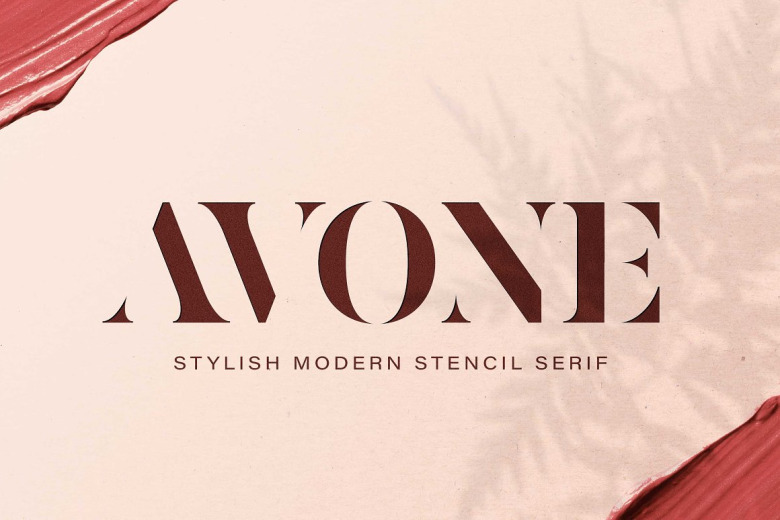
AVONE Font
AVONE Font is a sophisticated, contemporary serif typeface created by Almarkha Type with a stylish touch inspired by the famous minimalist logo and AVONE has 2 Regular and Stencil styles is perfect for the purposes of designing templates, brochures, videos, advertising branding, logos and more.
AVONE Serif Font